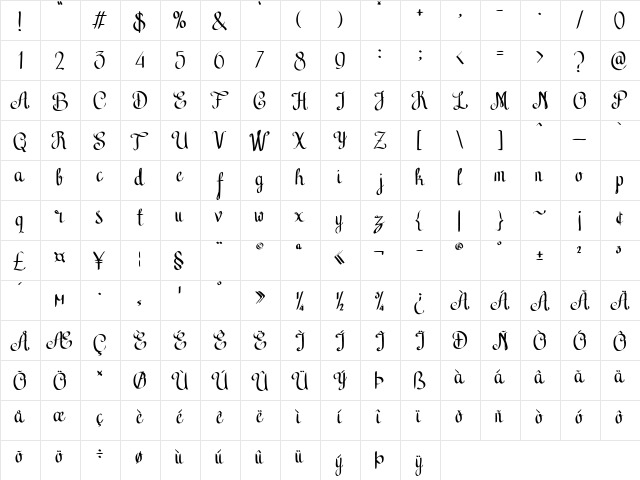
Caraka Regular
| Foundry | Arkara |
| Designer | Edy Bagus P |
Design Context for Caraka Typeface
Caraka is a composed and adaptable typeface that performs quietly and consistently across a wide range of design contexts.